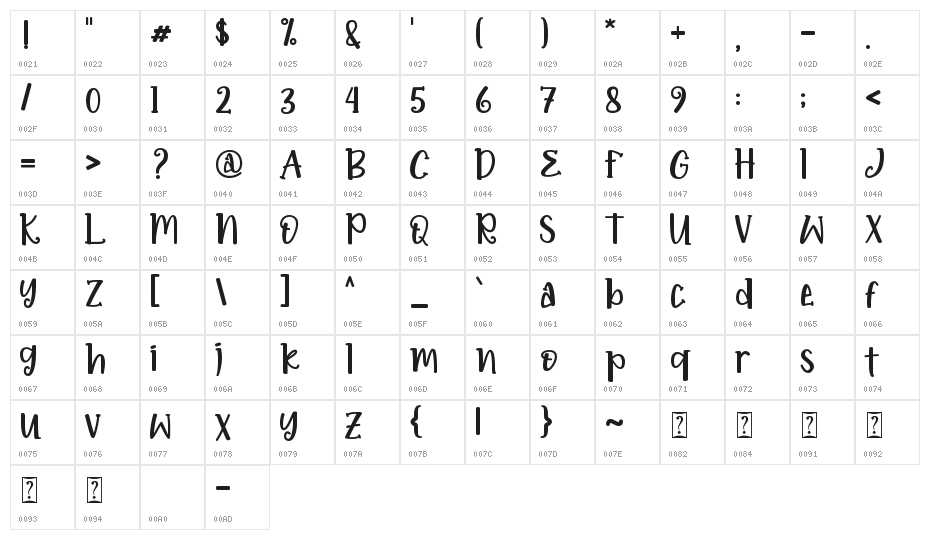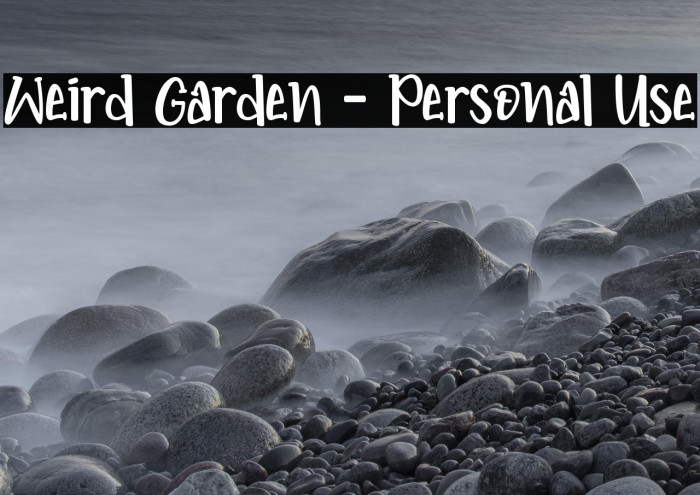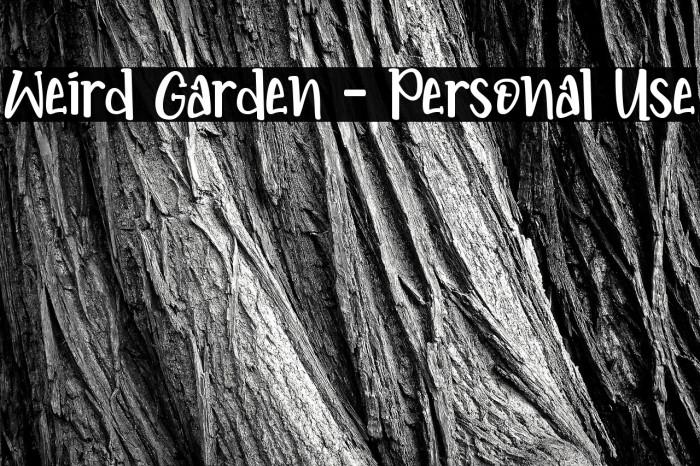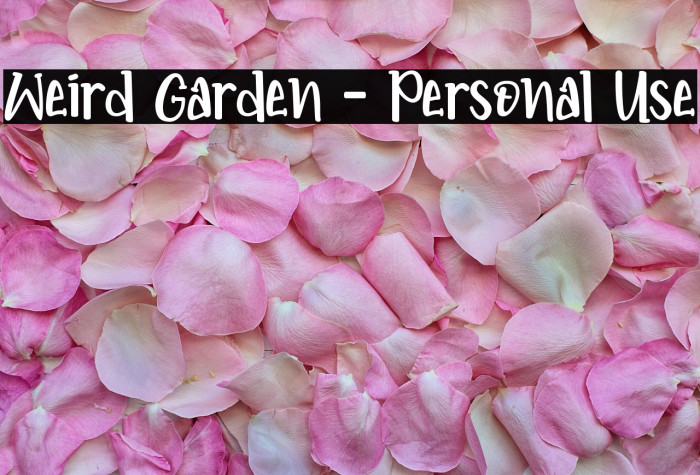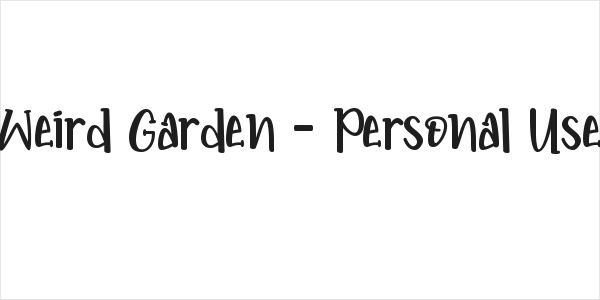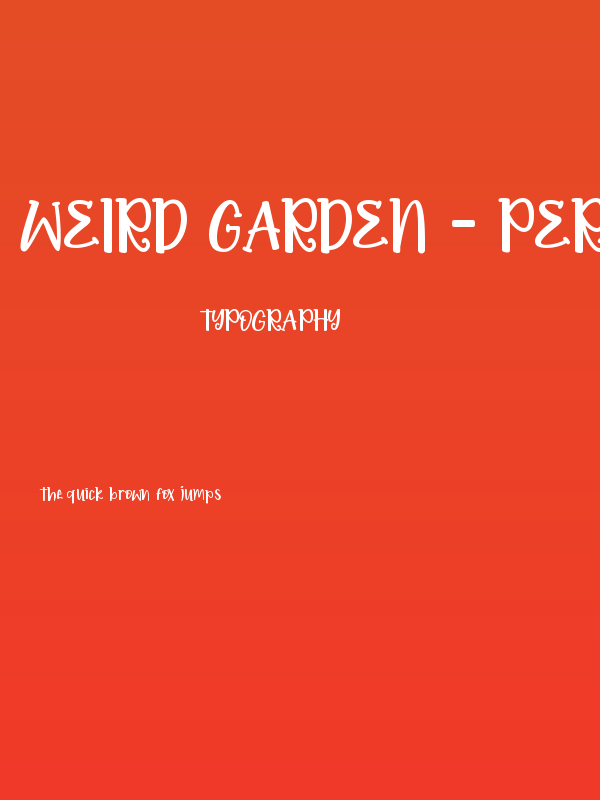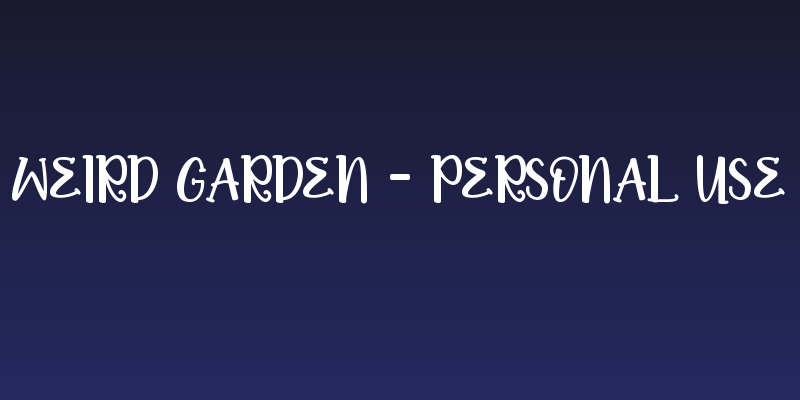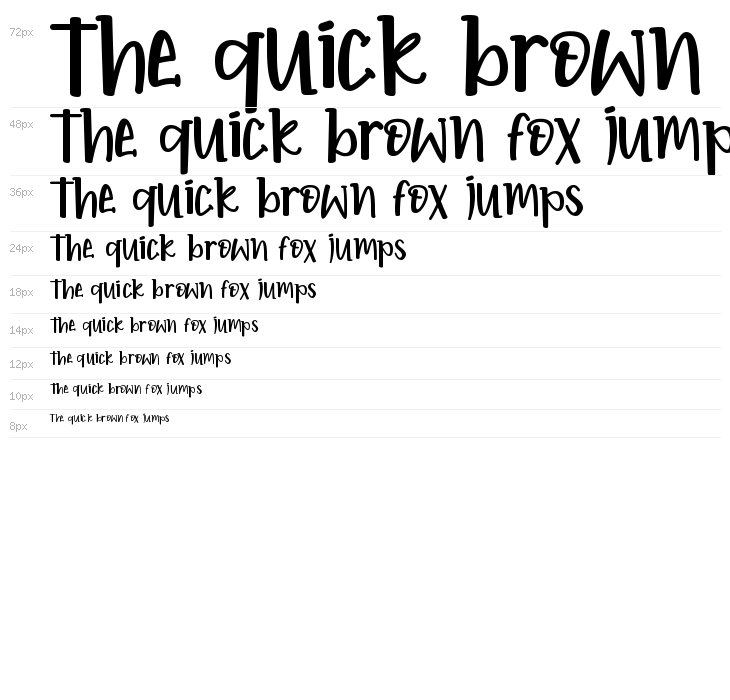
Weird Garden - Personal Use Font
Weird Garden - Personal Use Description
This playful and whimsical font features a handwritten style with a bold and expressive character. The letters are slightly irregular, giving it a lively and dynamic appearance. The uppercase and lowercase letters have a consistent flow, with some characters featuring unique curls and loops that add to its charm. The numbers and special characters maintain the same playful aesthetic, making it suitable for creative and informal designs. The font's boldness ensures readability while its unique style makes it stand out.
| Proposed Projects | Ideal for children's book covers, playful branding, greeting cards, and creative posters. |